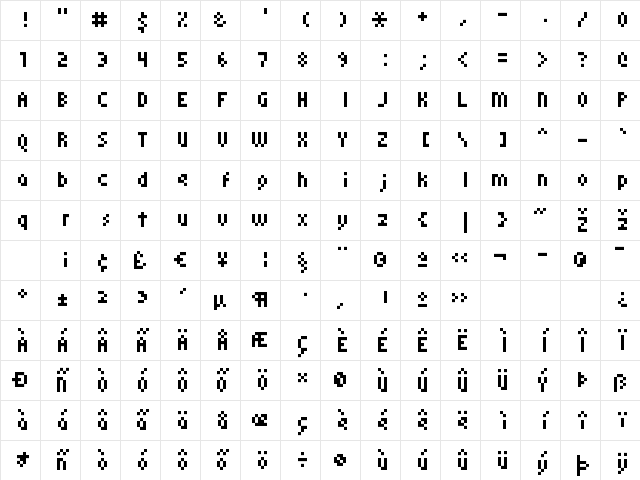
monoeger 05_55 Regular
| Designer | Craig Kroeger |
Design Context for monoeger 05_55 Typeface
monoeger 05_55 uses fixed-width spacing throughout, giving it the structured, systematic character associated with coding environments and technical documentation.